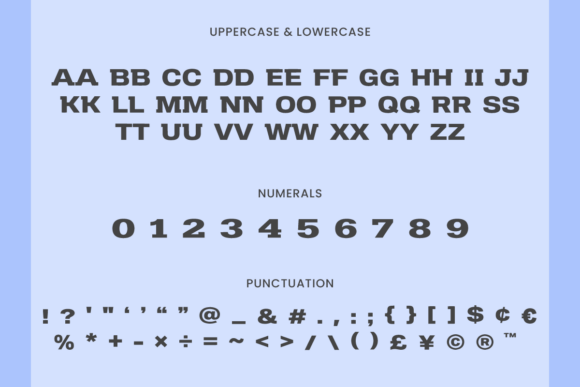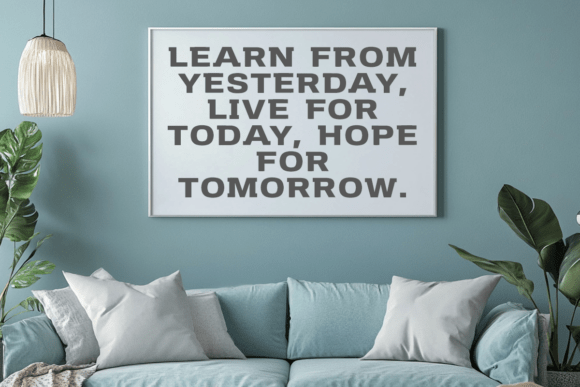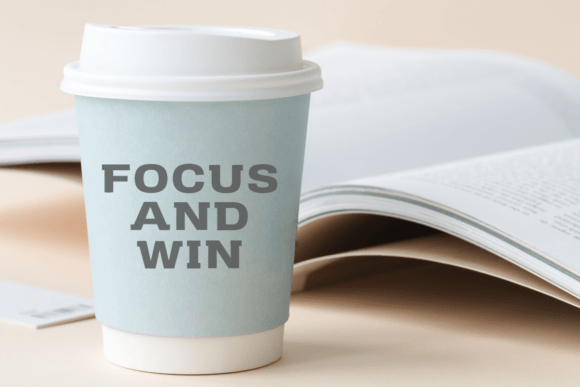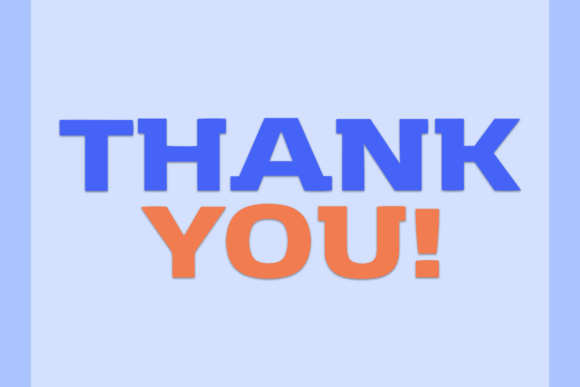
Introduction to Ocean Block Font
Have you ever stared at a blank canvas, desperate for the perfect font to bring your creative project to life? That’s exactly what happened to many designers when they laid eyes on the bold and eye-catching Ocean Block Font. This stunning display font is designed to make waves and leave a lasting impression, making it an instant favorite among designers.
Whether you’re working on a beach-themed design, a summer promotion, or a vibrant visual identity, Ocean Block Font is the perfect addition to your design resource. Its balanced structure ensures readability, while its distinctive personality draws attention instantly. With a high-quality design like this, you can create stunning visuals that will leave a lasting impact on your audience. And the best part? You can download Ocean Block Font for free, complete with a transparent background, making it easy to integrate into any design project.
As a designer, you know how valuable it is to have a reliable and versatile font like Ocean Block Font in your toolkit. It’s the perfect combination of style and substance, making it a must-have for any creative project.
Key Features of Ocean Block Font
- High-quality design resource with a unique, creative style suitable for various projects.
- Designed to provide a clean and modern look, perfect for creative projects.
- Includes multiple font styles, allowing for versatility and customization in design.
- Size: Optimized for use in a variety of font sizes, from small to large.
Honest Review: Ocean Block Font
As a designer, I’m always on the lookout for high-quality fonts that can elevate my creative projects. Recently, I had the chance to try out the Ocean Block Font, and I’m excited to share my thoughts.
What works well: ✨ The Ocean Block Font is incredibly versatile and can be used in a variety of design projects, from branding to digital art. The font is also available for free download, which is a huge plus. The transparent background makes it easy to customize and integrate into any design.
- High-quality design: The font is crisp and clean, making it perfect for any project that requires a professional look.
Any limitations: ⚠️ While the Ocean Block Font is a great addition to any designer’s toolkit, it’s not without its limitations. The font is a bit limited in terms of styles and weights, which may not be suitable for designers who require a wide range of options.
Overall, I’m impressed with the Ocean Block Font and would definitely recommend it to designers looking for a high-quality, free design resource for their creative projects.
The Ocean Block Font is versatile and can be used in various design projects, including social media graphics, posters, flyers, and brochures. Its unique style makes it perfect for creative projects that require a touch of elegance and sophistication.